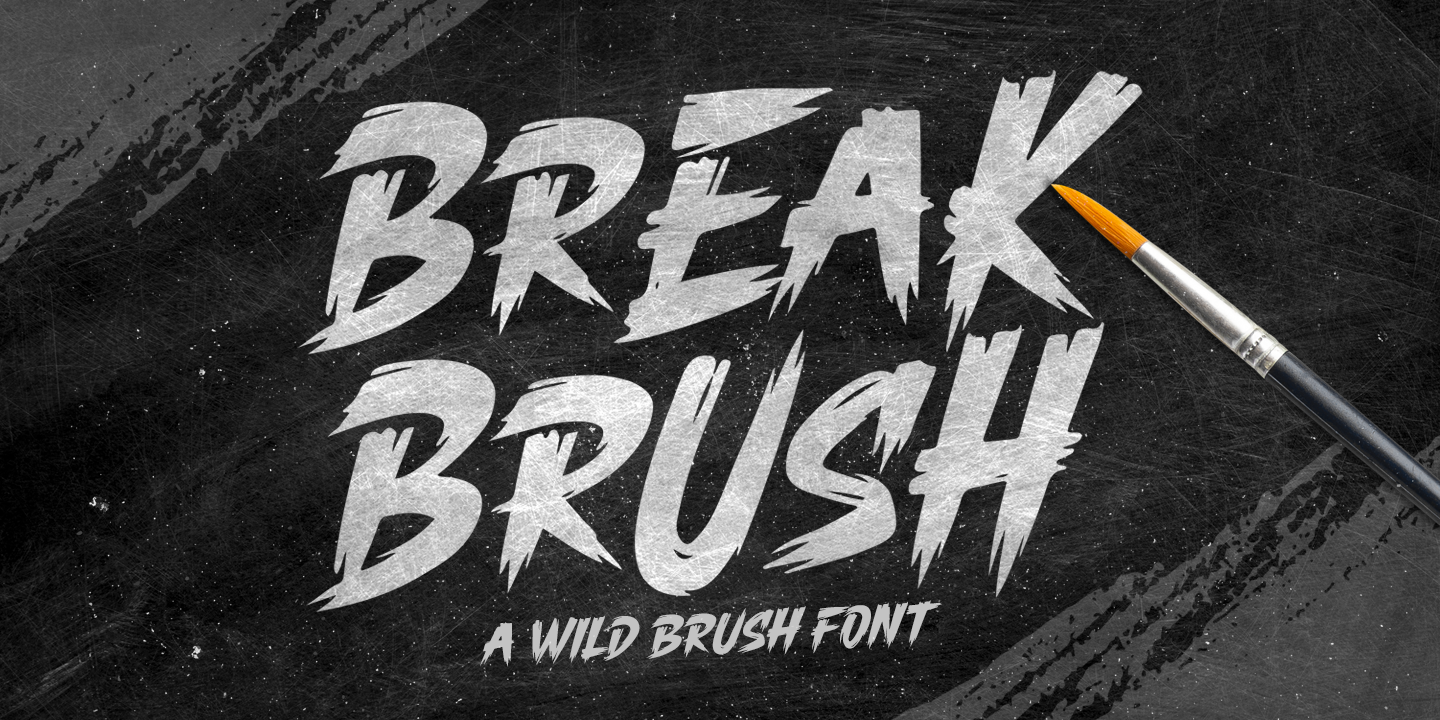
Break Brush Font is perfect for street art murals, urban fashion branding, hip-hop album covers, skateboard graphics, graffiti-style signage, breakdancing event posters, urban culture magazines, street wear labels, underground music venues, and contemporary art gallery exhibitions.
What makes Break Brush Font so exciting is its raw embodiment of urban creativity and street culture rebellion through boldly painted letterforms that capture the unfiltered energy and authentic spirit of underground artistic movements. The font's design philosophy celebrates the power of grassroots expression and artistic resistance, featuring aggressive brush strokes, dripping paint effects, and deliberately rough textures that mirror the spontaneous creativity found on city walls, abandoned buildings, and underground venues where authentic culture is born. Each character pulses with urban authenticity and rebellious energy, creating a visual language that instantly communicates street credibility, artistic rebellion, and the uncompromising truth of underground culture that speaks directly to audiences seeking genuine expression and urban authenticity.
The Break Brush Font family includes street variations: Regular, Bold, Light, Medium, Condensed, Extended, Italic, Drip, and Heavy styles. Each variation maintains the font's characteristic urban authenticity while offering different levels of street intensity and graffiti detail for various underground and contemporary design applications.
When searching for a typeface that embodies the essence of street culture and urban artistic rebellion, Break Brush Font Free Download represents the perfect fusion of raw creativity with typographic power that elevates any project to new levels of street credibility and urban appeal.
The authentically crafted letterforms of Break Brush Font demonstrate superior attention to street art principles, featuring organic brush textures, urban spacing, and rebellious curves that ensure optimal impact while maintaining the font's distinctive underground character. Its versatile design adapts seamlessly from intimate sticker designs to massive wall murals.
Professional designers working on youth brands, urban fashion, and street culture projects particularly value the font's ability to convey authenticity, rebellion, and street credibility. The typeface works exceptionally well for projects targeting urban communities, hip-hop culture, and anyone seeking to project underground positioning and street authenticity.
The comprehensive OpenType features of Break Brush Font include street alternates, graffiti ligatures, and specialized urban characters that enable designers to create authentic street typography while maintaining the font's distinctive rebellious character throughout all design elements and urban applications.